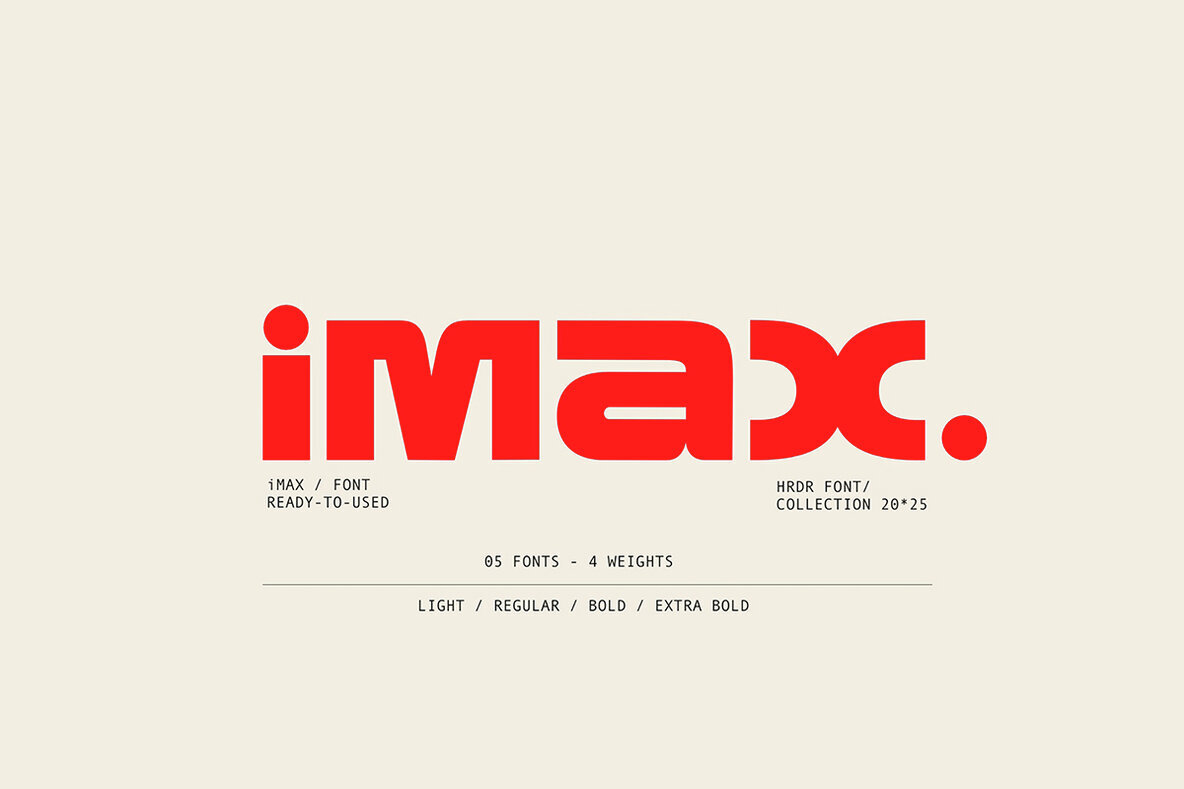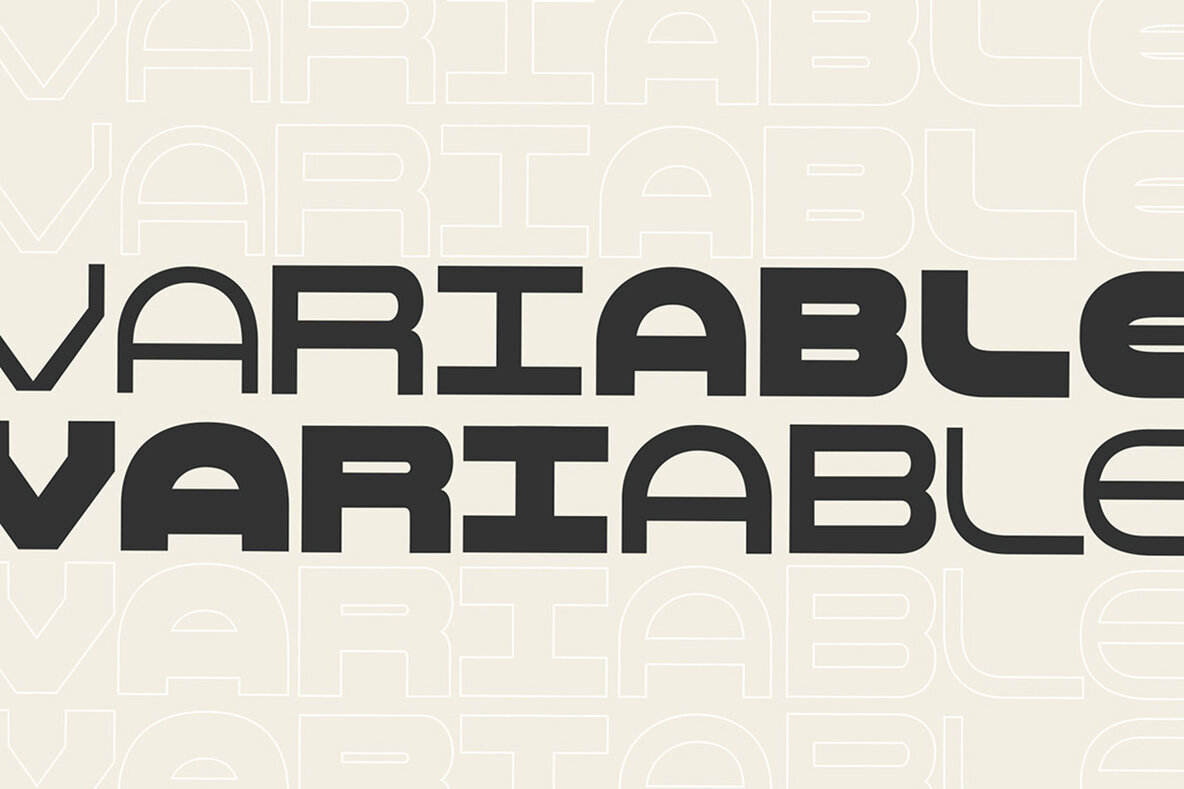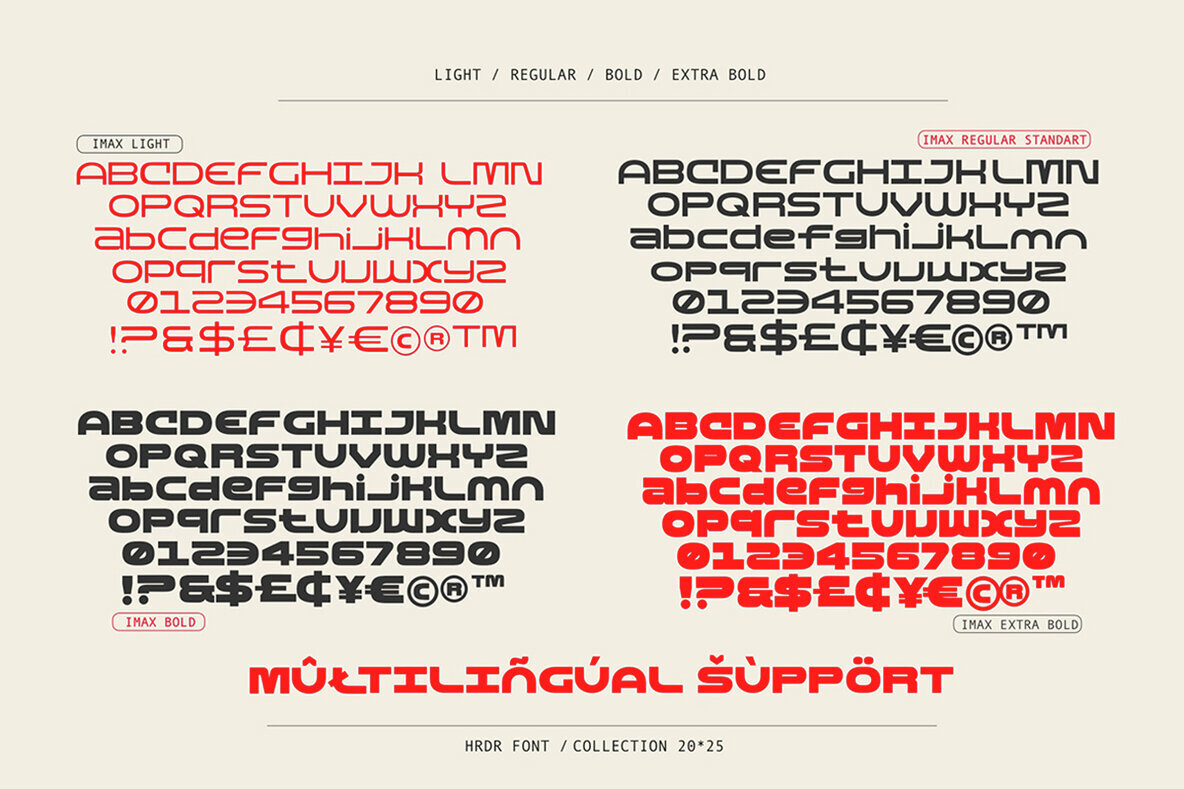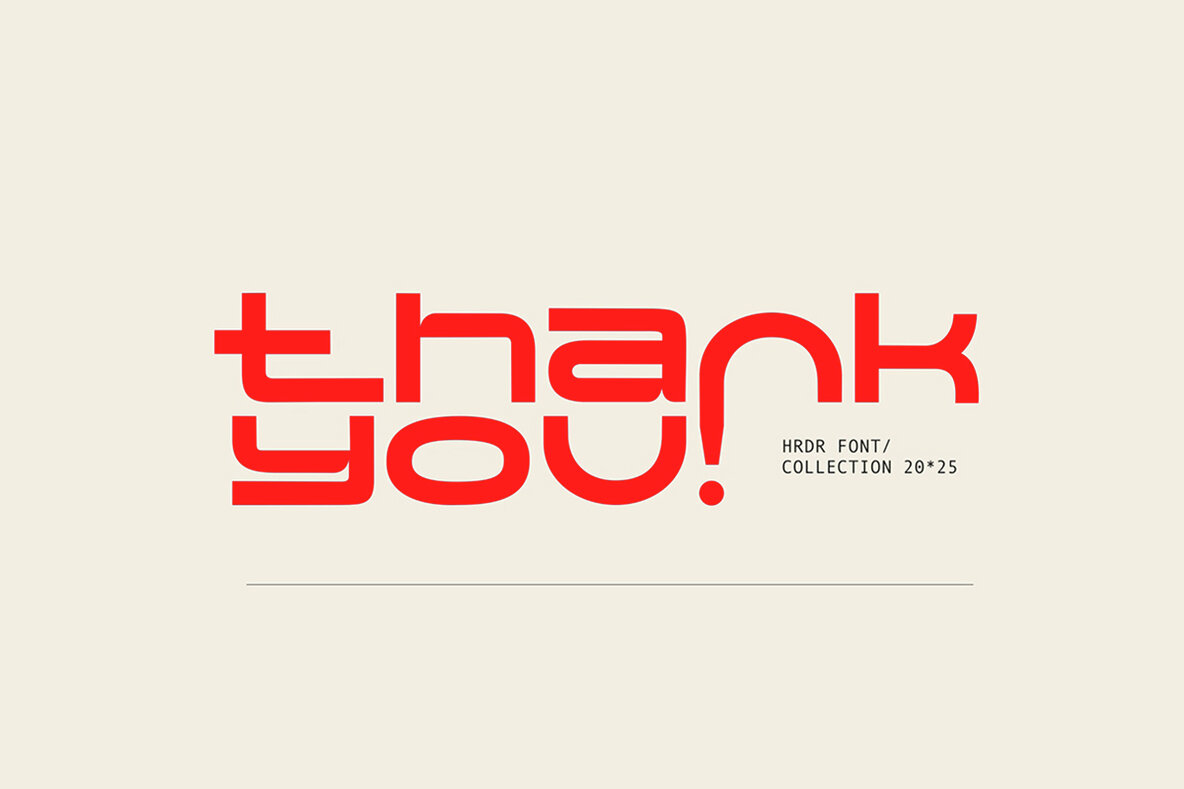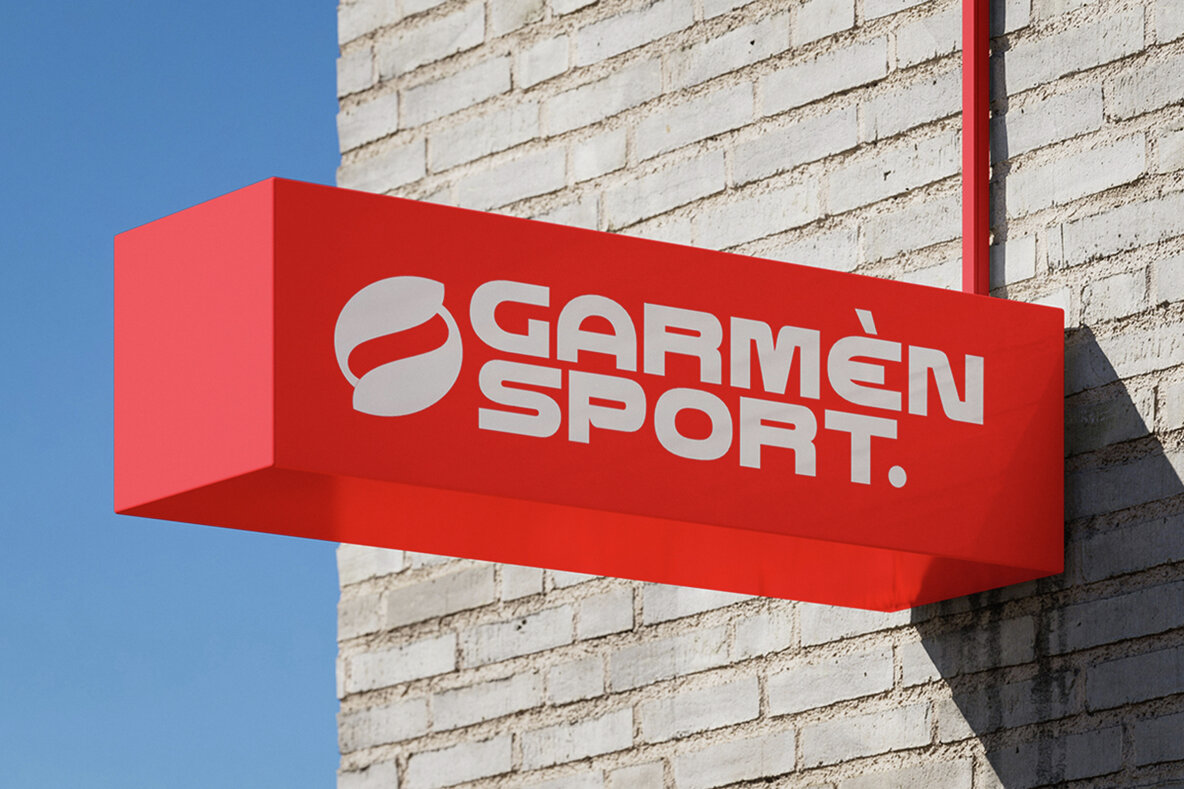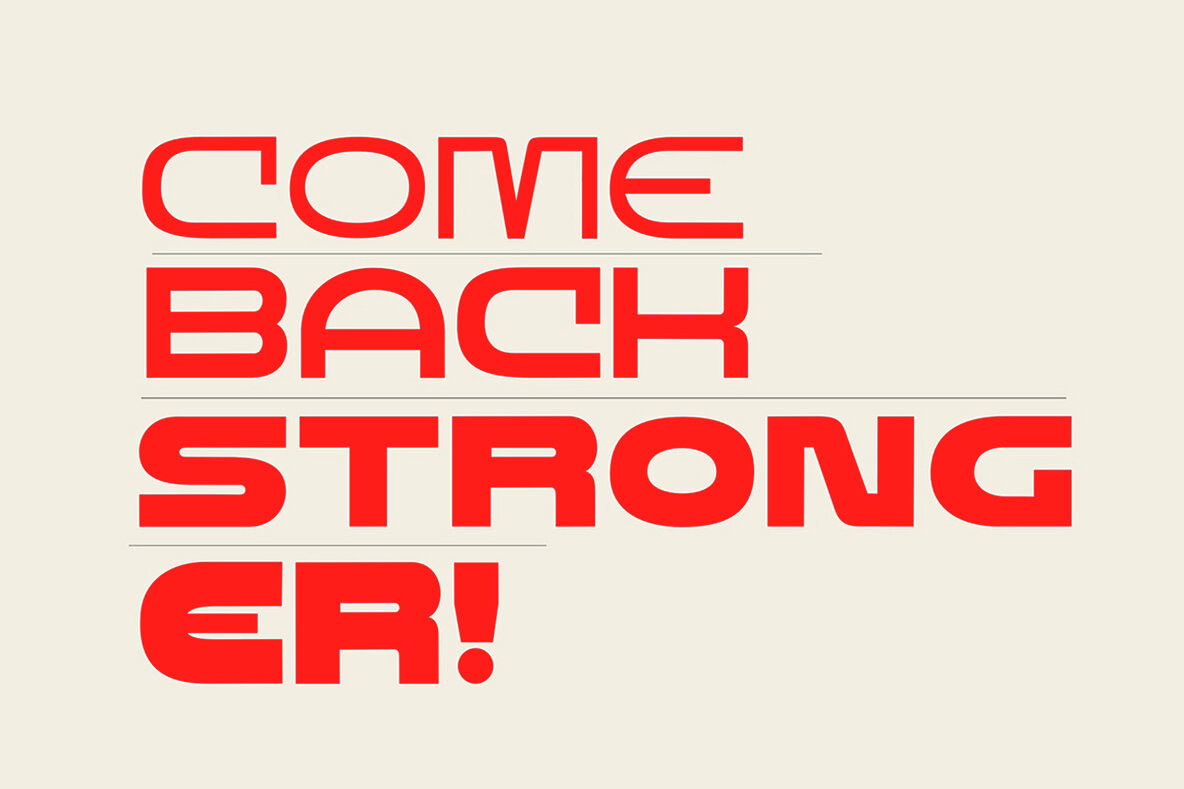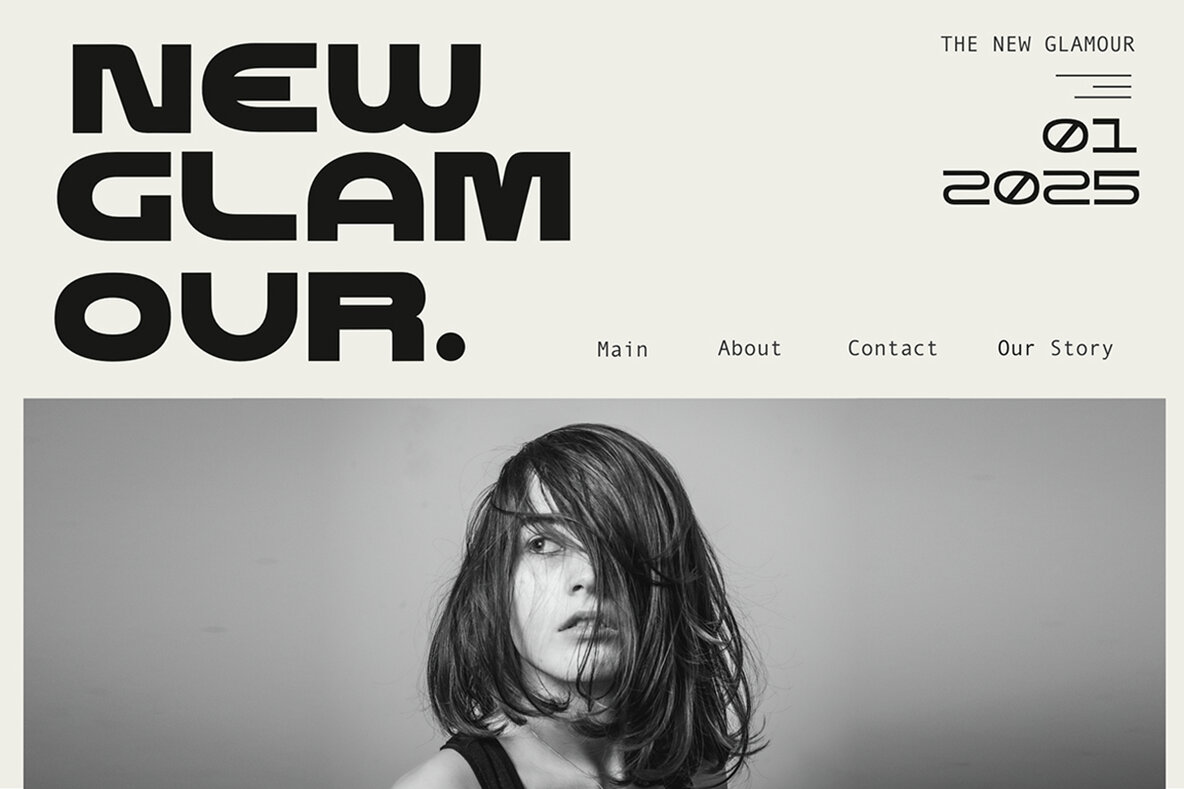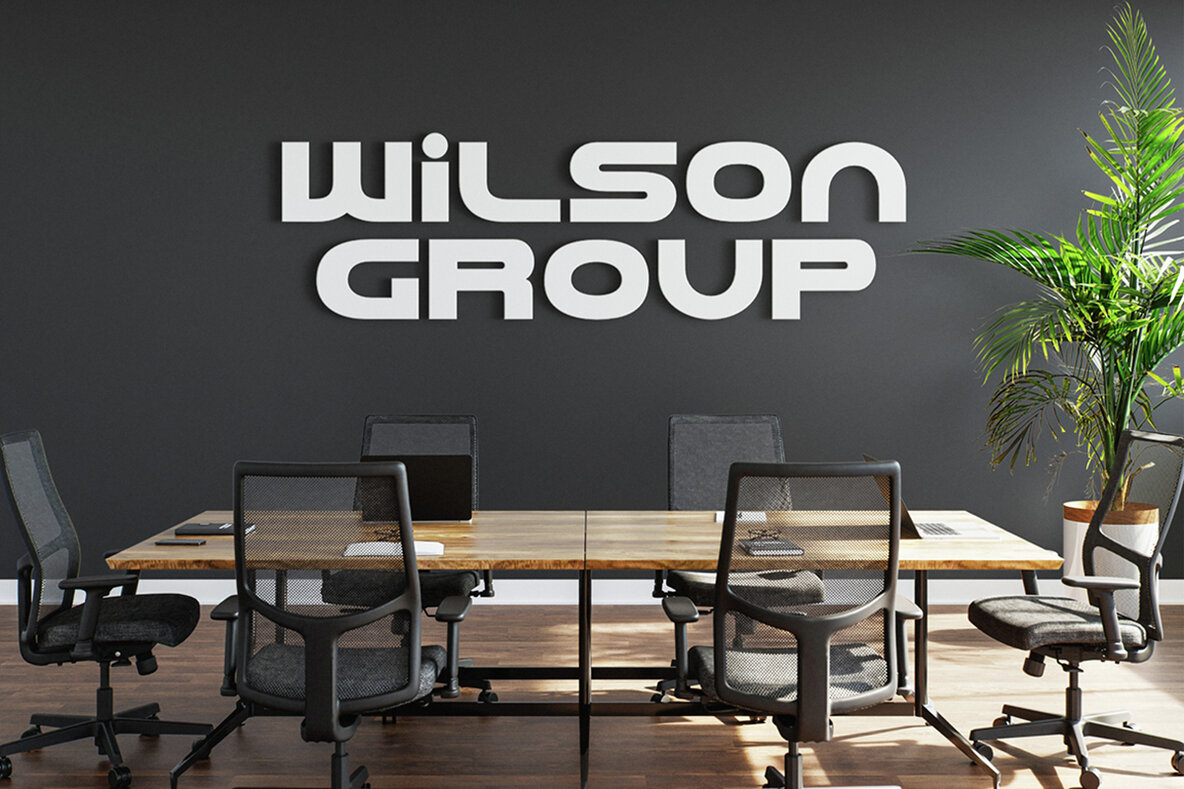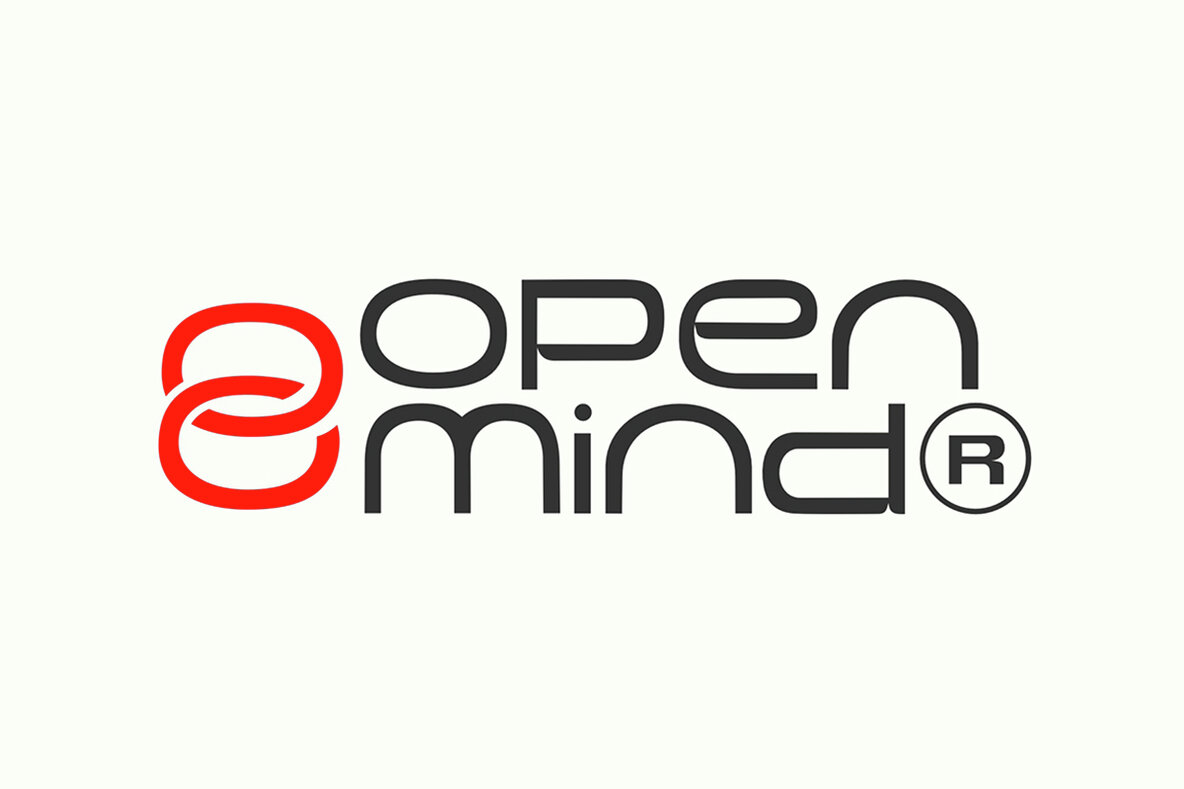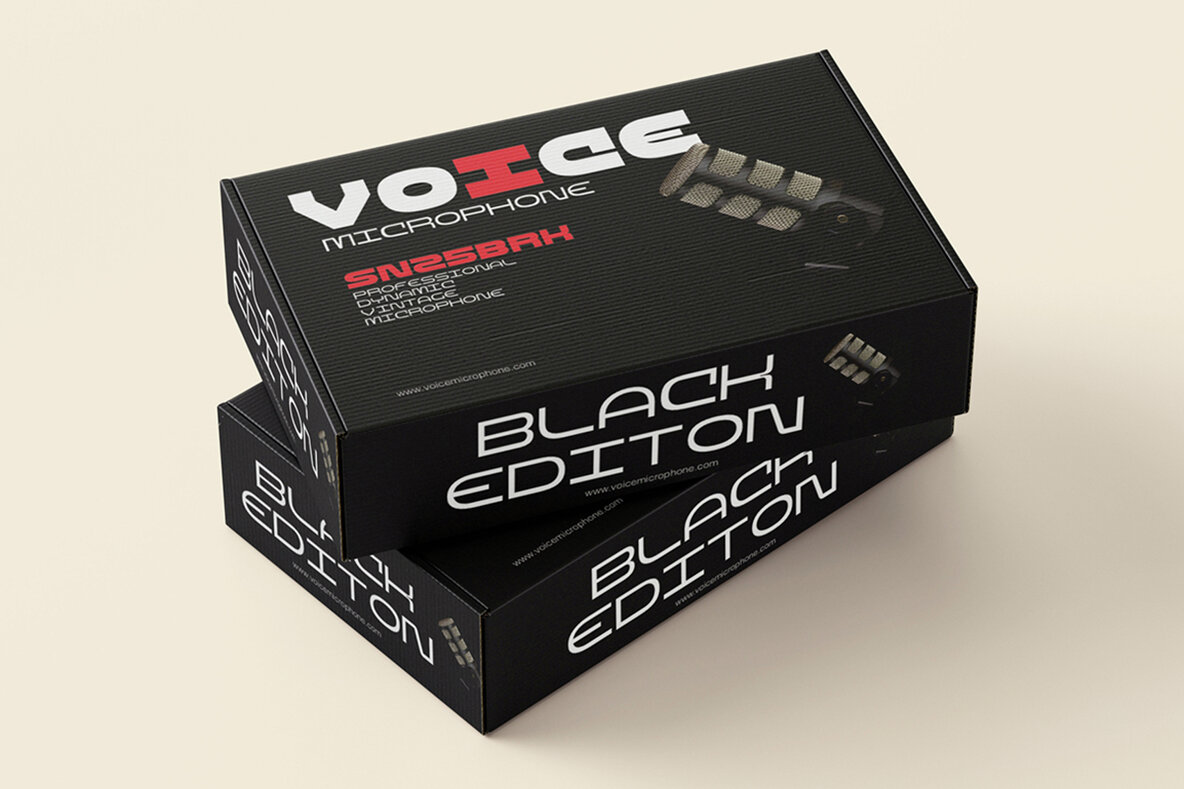
Imax Font
Embrace a contemporary aesthetic with Imax, a versatile type style ideal for logos, branding, film production, and more. Designed as a variable font, it offers five distinct widths, allowing extensive creative flexibility for any project. With Imax, achieve an elegant yet strong visual identity suitable for various applications, from motion graphics to packaging. Explore the Imax family, including Light, Standard, Regular, Bold, and Extra Bold styles, all PUA encoded for compatibility with software that may not support OpenType features.Imax: Versatile Typeface for Modern Creations